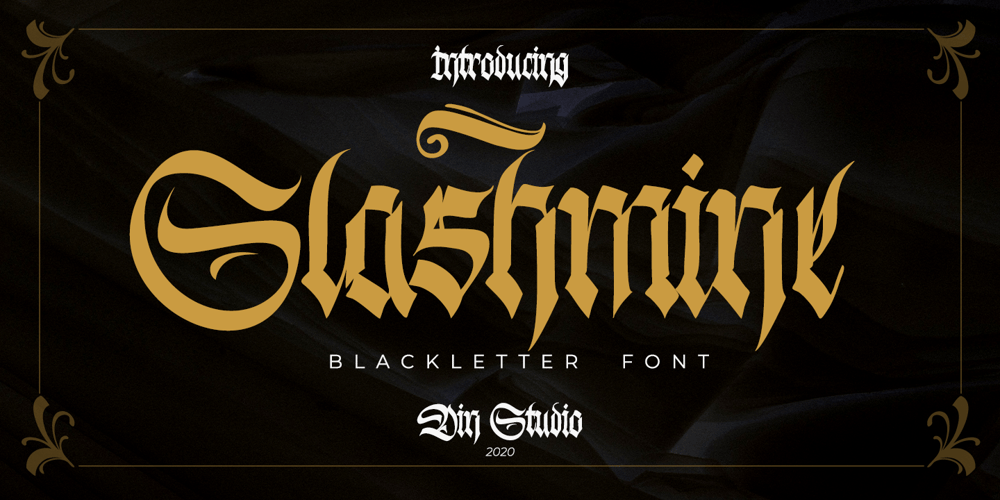
Slashmine
Slashmine font
Slashmine Font Family was designed by Donis Miftahudin and published by Din Studio. Slashmine contains 1 styles and family package options. Slashmine is authentic and modern blackletter font. The font is suitable for any branding project like logo, t-shirt printing and many more. Outstanding in a wide range of contexts. Featured : Alternates Accents (Multilingual characters) PUA encoded Numerals and Punctuation (OpenType Standard) Thanks for downloading premium font from Din Studio